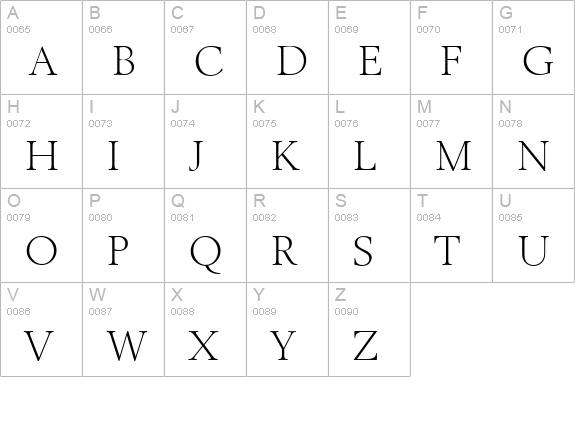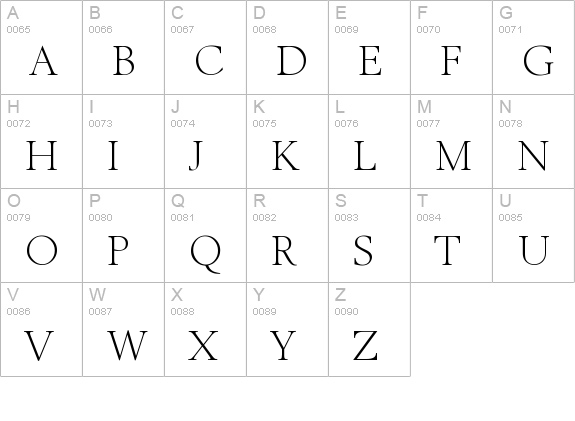
BelfastSerial-Xlight-Regular Font Details
BelfastSerial-Xlight-Regular is the standard, neutral variant in the BelfastSerial typeface family \xE2\x80\x94 well suited to general body text, paragraphs, and standard typographic work.
BelfastSerial-Xlight-Regular is a stylish and modern font that exudes elegance and sophistication. With its sleek design and clean lines, this font is perfect for a wide range of projects, from branding and advertising to publications and websites. The thin strokes and delicate curves of BelfastSerial-Xlight-Regular add a touch of finesse to any text, making it a versatile choice for both professional and creative applications. The best part? BelfastSerial-Xlight-Regular is completely free to download at FontsMarket.com. This means you can access this high-quality font without any cost, making it a valuable addition to your font library. Whether you're working on a personal project or a client's design, BelfastSerial-Xlight-Regular will elevate your work with its refined aesthetic and timeless appeal. Download BelfastSerial-Xlight-Regular today from FontsMarket.com and enhance your designs with this exceptional font that combines style, versatility, and accessibility.